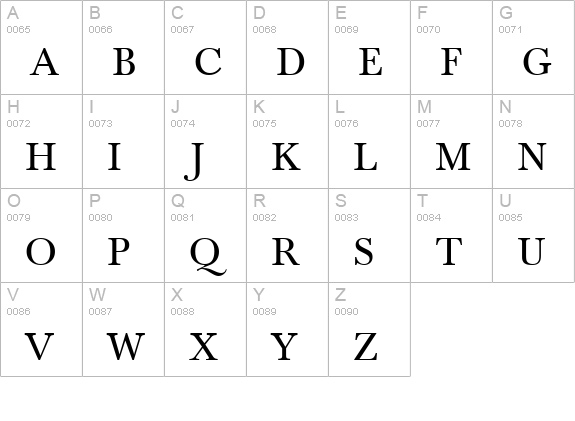
BaskervilleT font is a timeless and elegant typeface that exudes sophistication and charm. With its classic serifs and clean lines, this font is perfect for adding a touch of refinement to any project. Whether used for print materials, digital designs, or branding, BaskervilleT font will make a lasting impression. The best part? BaskervilleT font is available for free download at FontsMarket.com. Simply visit the website to access this beautiful typeface and elevate your designs with its timeless appeal. Don't miss out on the opportunity to enhance your projects with the exquisite BaskervilleT font, now conveniently and freely available for download.